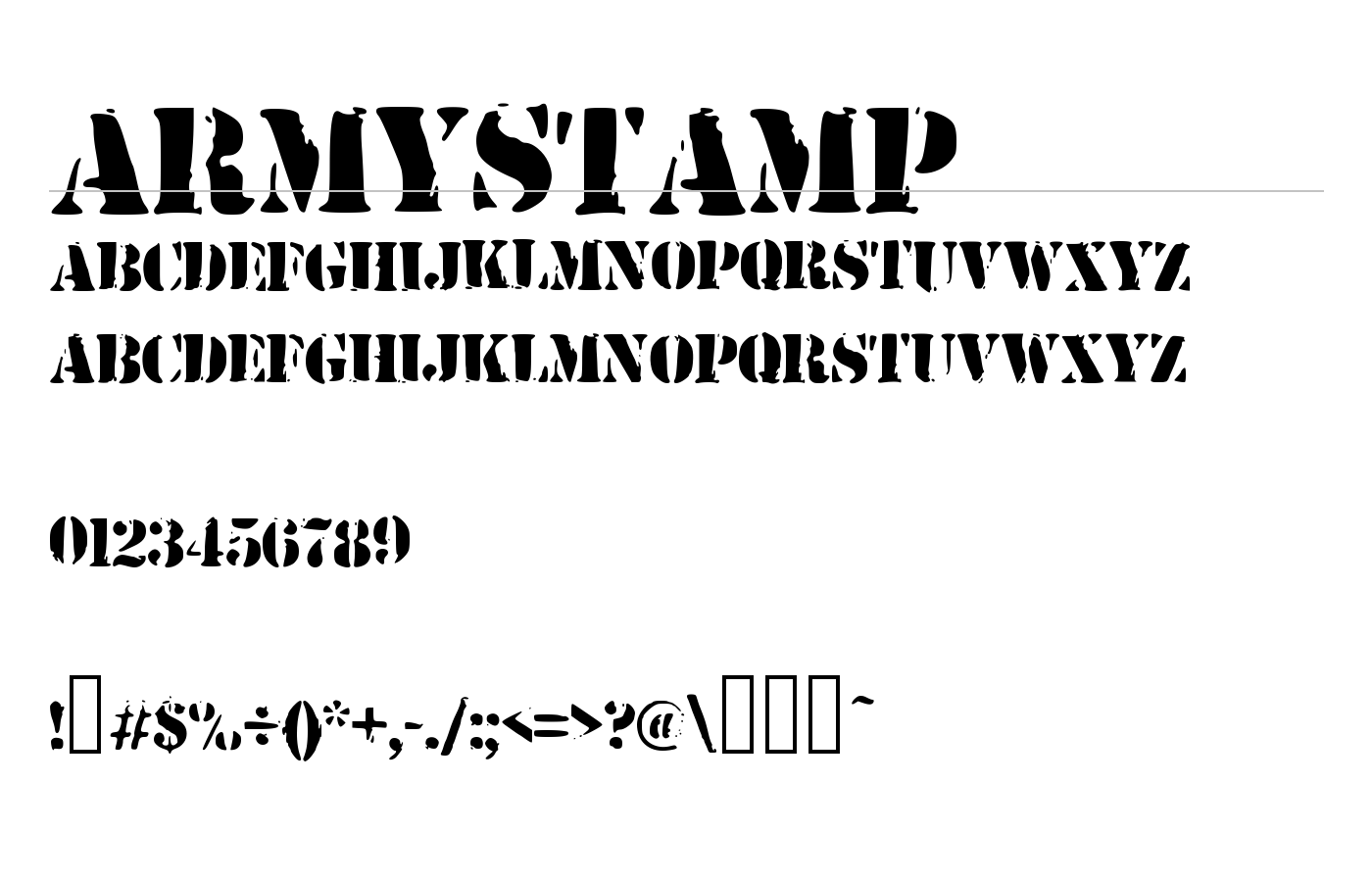
ArmyStamp is a bold, stencil-style serif font with a rugged, weathered look that mimics the appearance of military stamps or markings. Its strong, blocky letterforms combined with distressed textures create a vintage, utilitarian feel perfect for designs needing a tough, industrial, or military-inspired vibe. This font works well for logos, posters, packaging, and headlines where a bold, impactful statement is needed.
ArmyStamp Font
About ArmyStamp Font